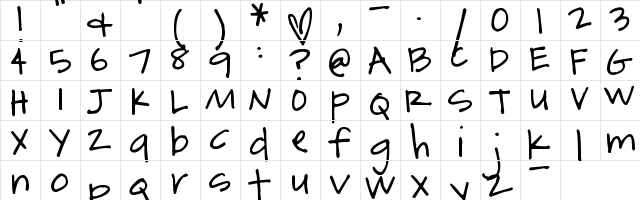
Pea Jenny Regular
Design Context for Pea Jenny Typeface
Pea Jenny is a composed and adaptable typeface that performs quietly and consistently across a wide range of design contexts.